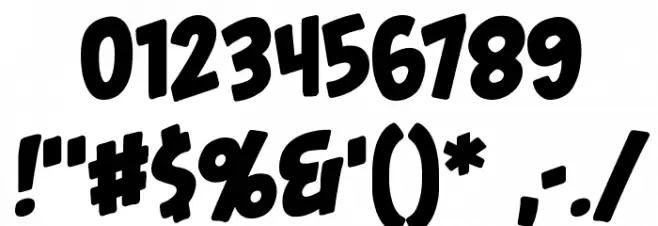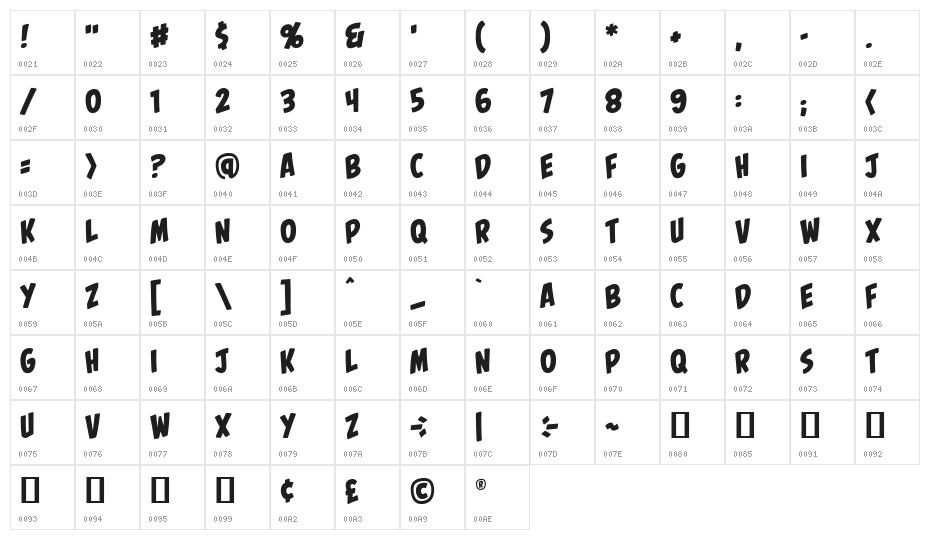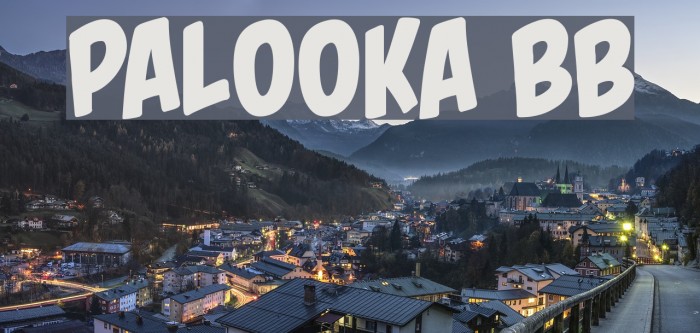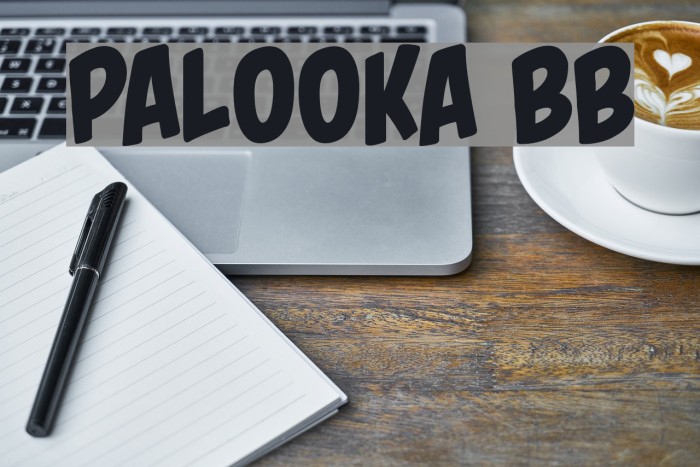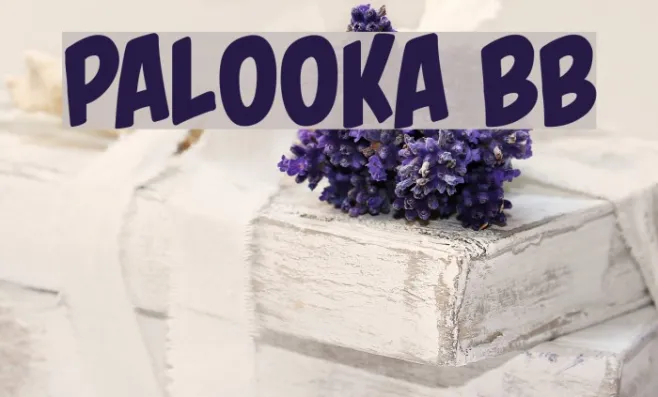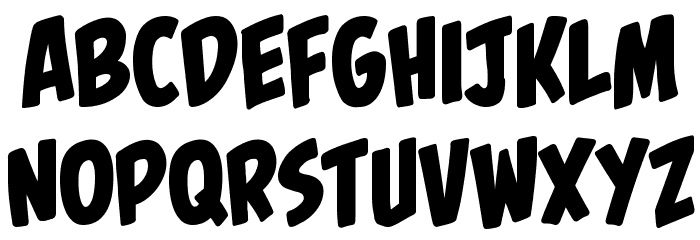
Palooka BB Font
Palooka BB Description
This font features a bold and playful style with a distinctly comic and informal appearance. The letters are thick and slightly slanted, giving them a dynamic and energetic feel. The strokes are consistent in width, contributing to a uniform look across all characters. The font includes both uppercase and lowercase letters, numbers, and a variety of special characters. Its exaggerated curves and rounded edges add a touch of whimsy, making it ideal for projects that require a fun and approachable aesthetic.
| Overall Style | Playful, Comic |
| Proposed Projects | Ideal for comic books, children's books, playful branding, posters, and informal event invitations. |